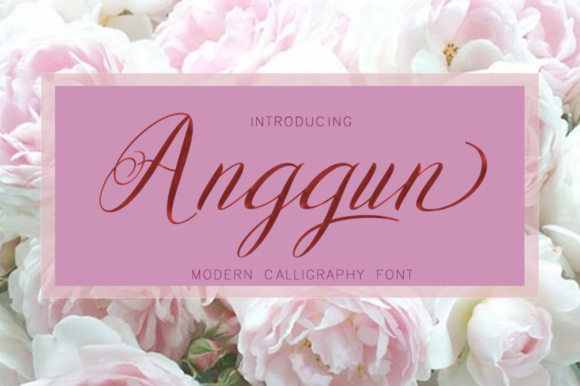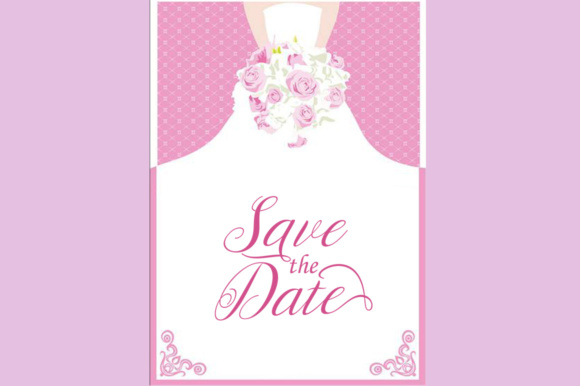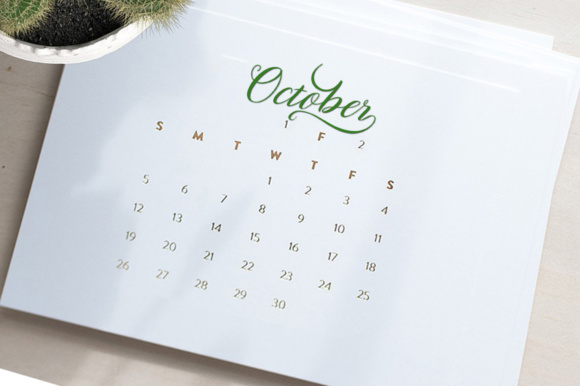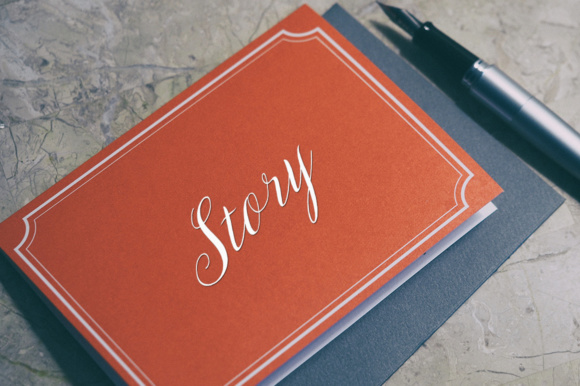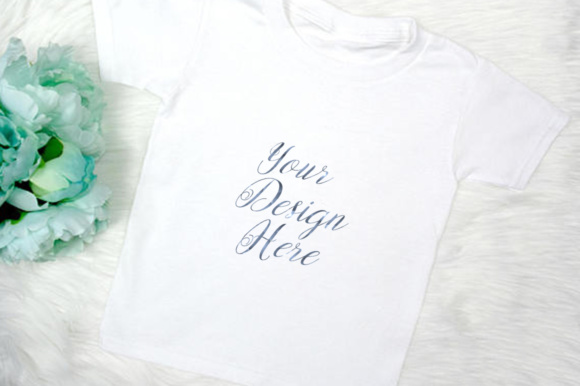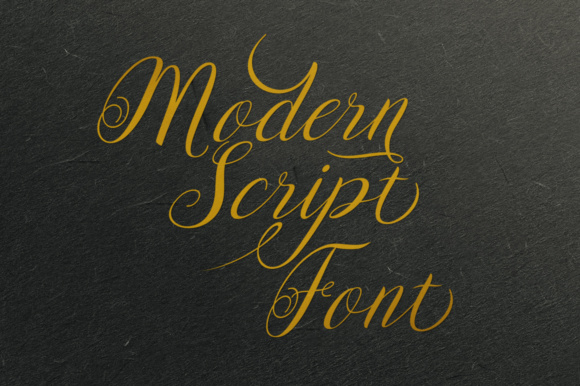
Anggun Script Font
About Anggun Script Font
The Anggun is a modern script font with an irregular baseline. It has a trendy and feminine style which looks lovely on wedding invitations, thank you cards, quotes, greeting cards, logos, business cards and more. It’s also perfect for using in ink or watercolor.